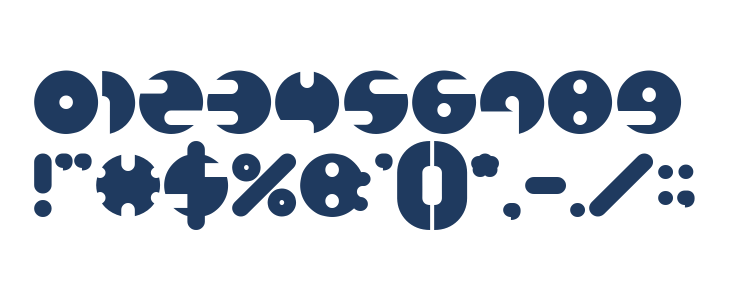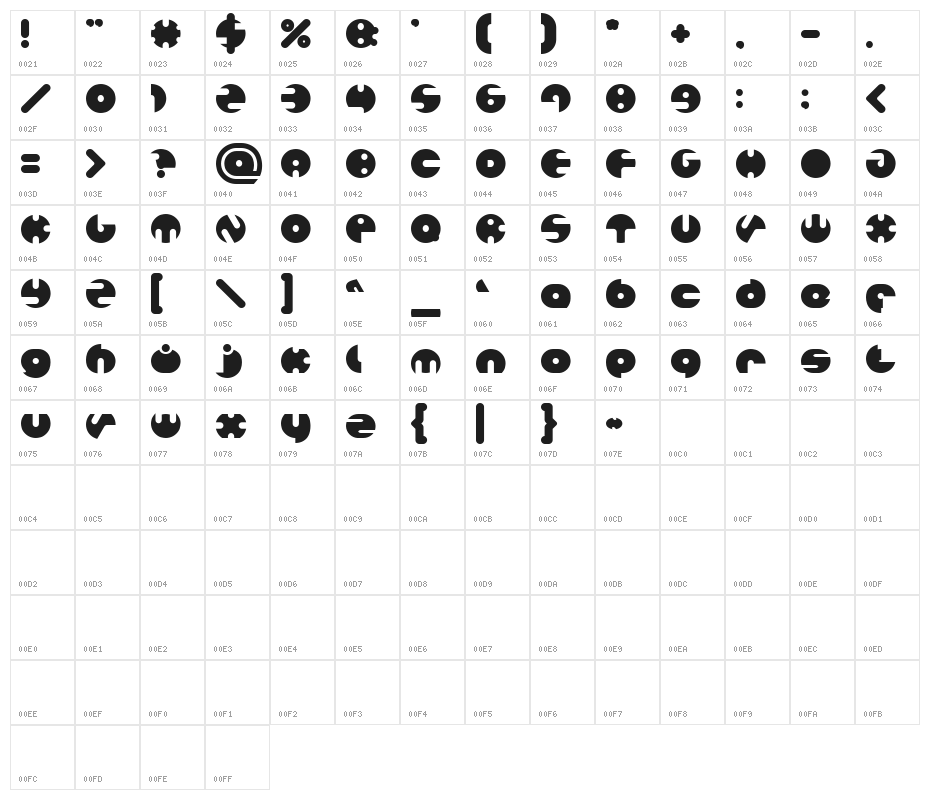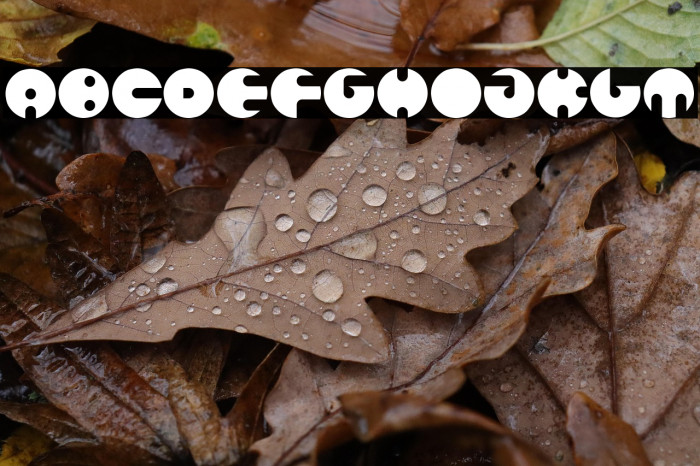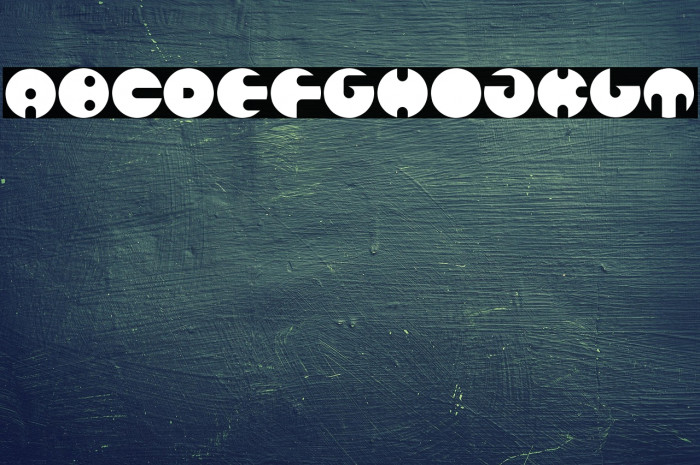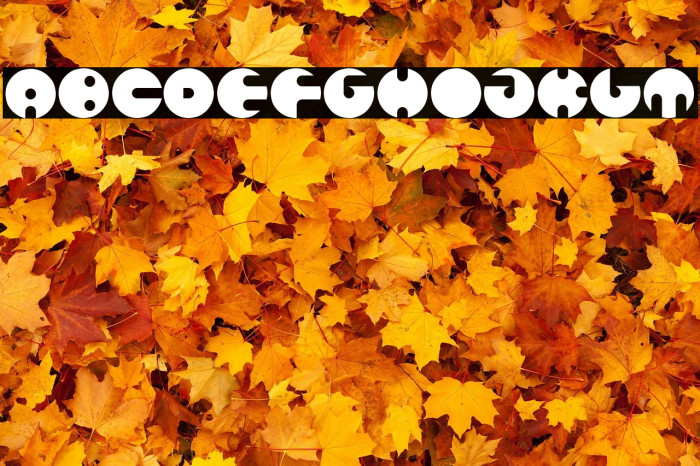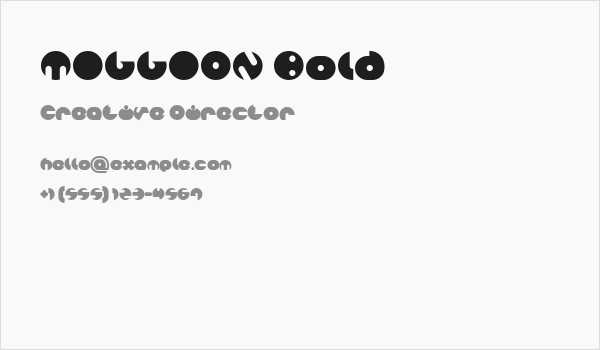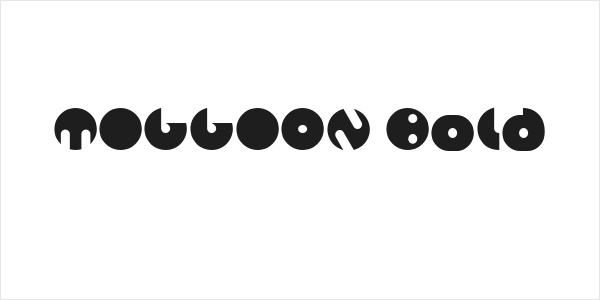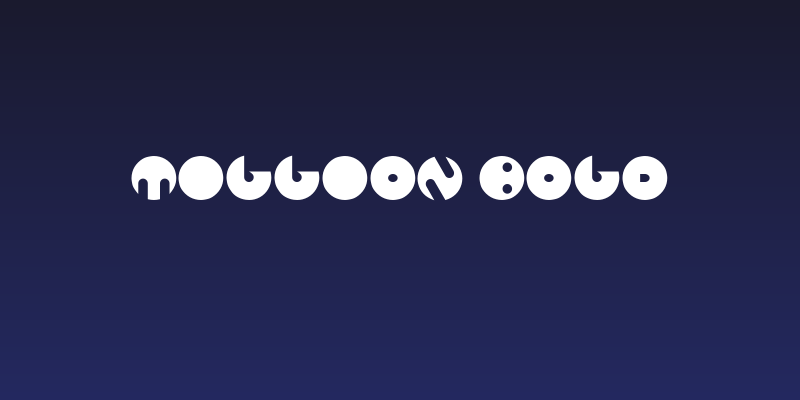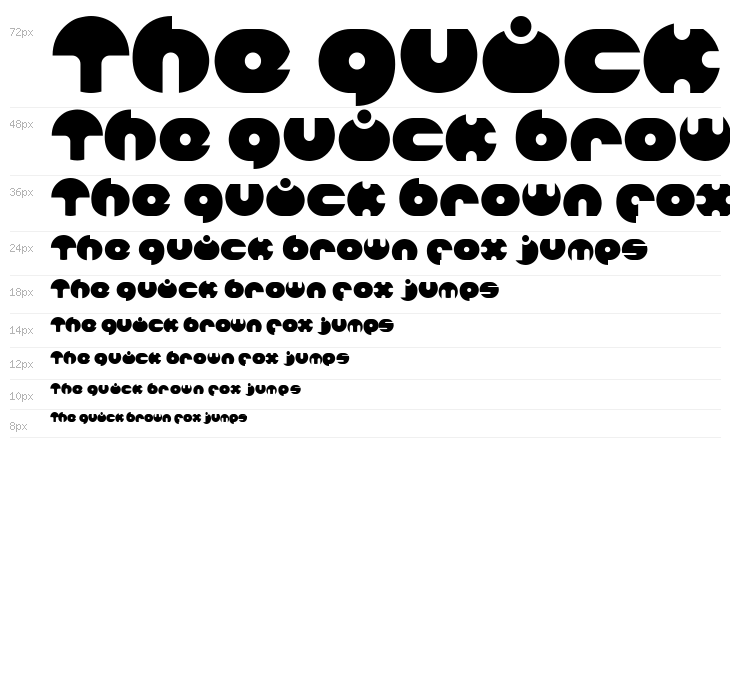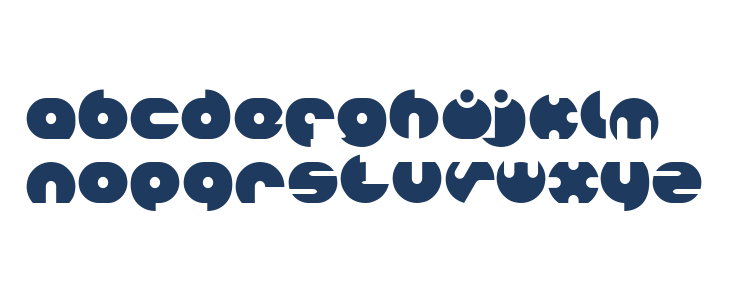
MILLION Bold Font
MILLION Bold Description
This font features a bold, geometric design with a futuristic and playful aesthetic. Each character is crafted with circular and semi-circular shapes, creating a unique and cohesive look. The letters and numbers are highly stylized, with consistent use of thick strokes and minimal contrast. The font's distinctive appearance is further enhanced by its uniform width and tight character spacing, making it ideal for eye-catching designs. The special characters maintain the same bold and rounded style, ensuring visual harmony across all elements.
| Proposed Projects | Ideal for branding, posters, album covers, and any project requiring a modern and distinctive look. |